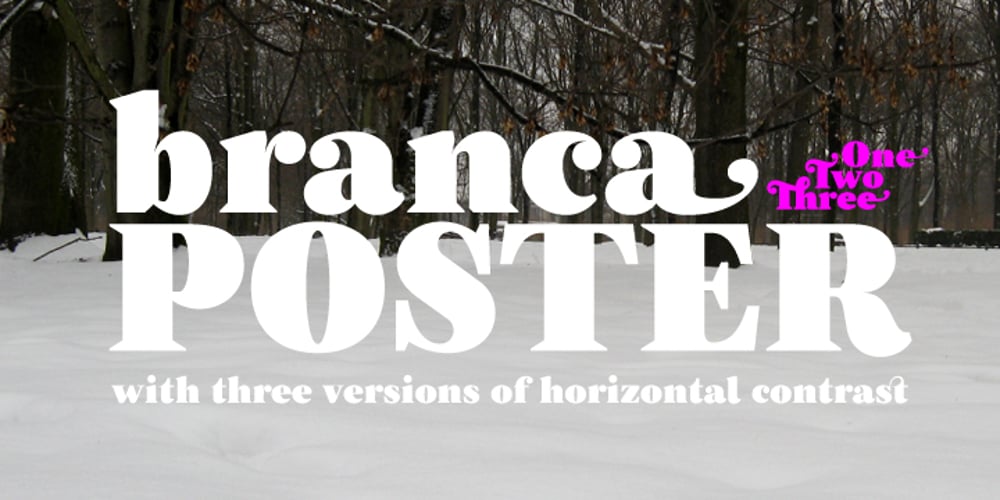
Branca Poster
Branca Poster font
Branca Poster Font Family was designed by Nuno Alves and published by UFF. Branca Poster contains 3 styles and family package options. Branca Poster is a heavy font with triangular serifs and with three versions of horizontal contrast. It was inspired by the Romantic fonts of vertical axis, with small openings and pronounced contrasts. Specially designed for posters, it has a wider characters map, with some Ligatures, Stylistic Alternates and Swashes, providing greater versatility to the user.